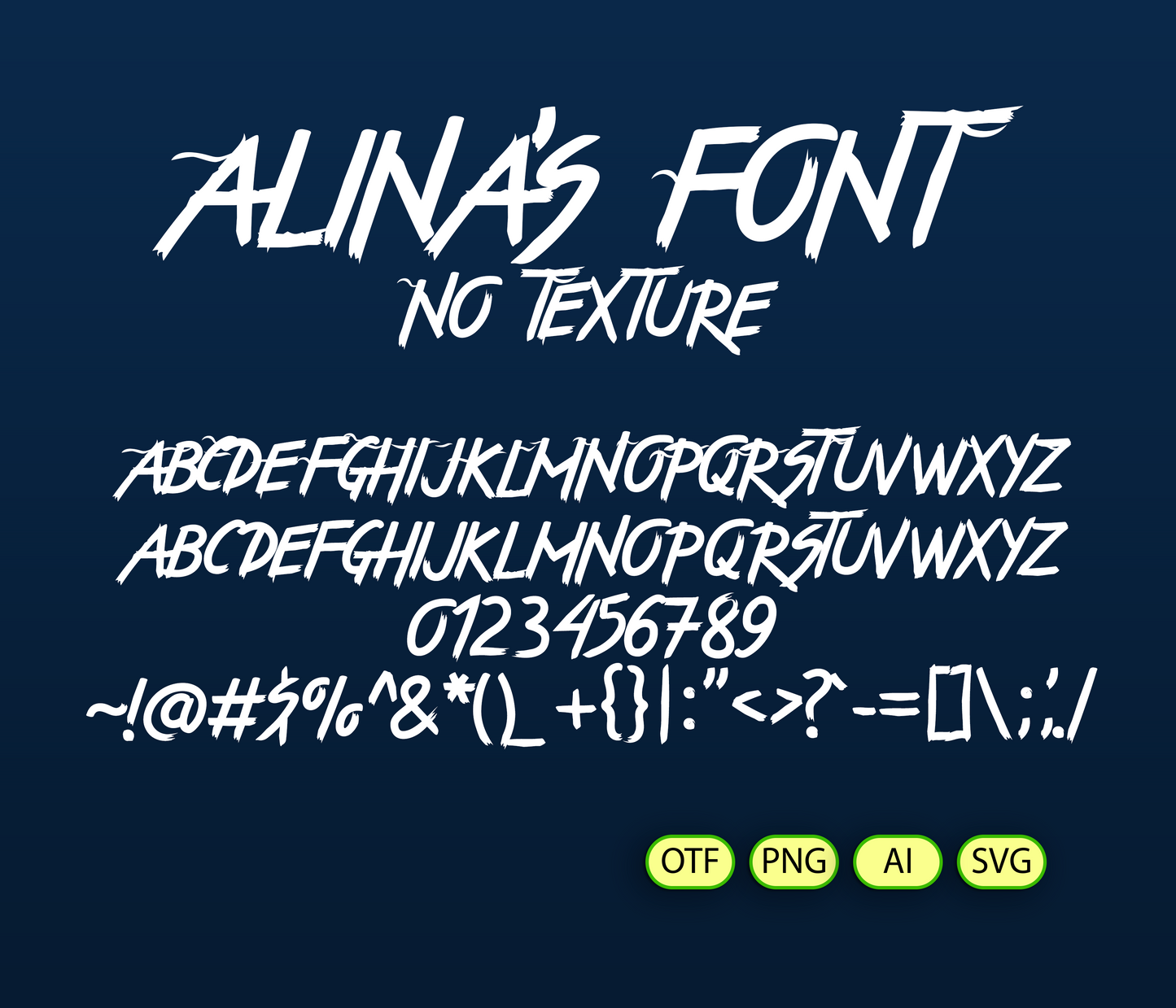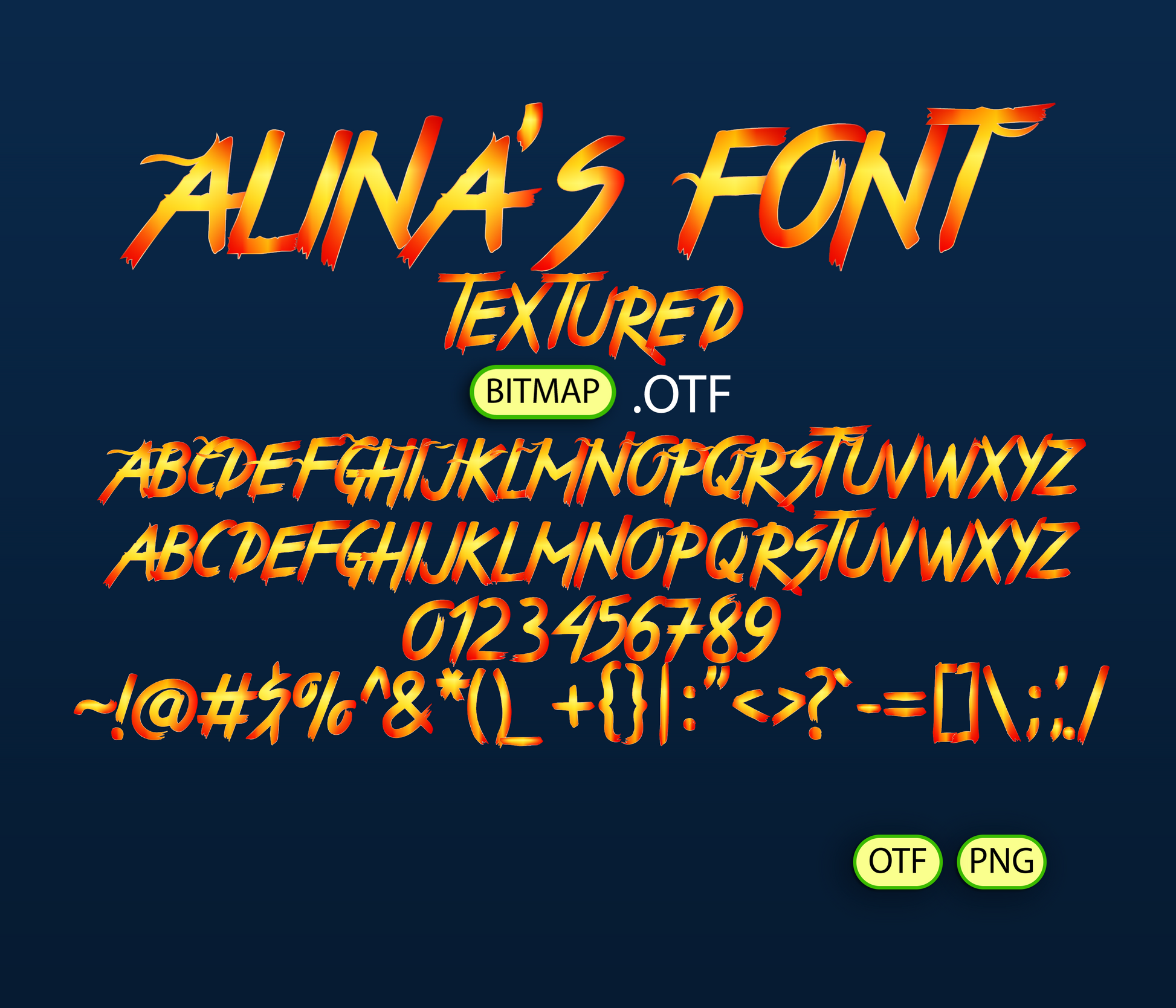
Vengeful Spirit: Last Ride Font Textured
Vengeful Spirit: Last Ride 2024 Textured Font
Ignite the flames of creativity with our Vengeful Spirit: Last Ride font, a blazing tribute to the latest chapter in the saga of an enigmatic supernatural anti-hero. This font encapsulates the intensity, rebellion, and fiery justice that the character embodies, set against the backdrop of his ultimate battle for redemption and vengeance. Drawing inspiration from dark, supernatural elements and iconic, hellish flames, this typeface is designed for fans eager to channel the spirit of the anti-hero into their own epic creations.
What font is the 'Vengeful Spirit: Last Ride' font?
This query unveils a typeface that mirrors the raw power and spectral aura of a ghostly rider. With characters that seem to be forged from fire and smoke, the font reflects the tumultuous journey of the character, blending elements of horror, action, and the supernatural. Its design strikes a balance between a gritty, visceral texture and a sleek, modern aesthetic, making it perfect for conveying the intensity of Last Ride. The comprehensive character set ensures that it is equipped for a wide range of applications, embodying themes of conflict, transformation, and justice.
• Comprehensive Character Set: Equipped with an extensive selection of characters to support creative projects, from straightforward text to complex designs requiring special symbols.
The Vengeful Spirit: Last Ride font is not merely a collection of letters; it's an invitation to explore the depths of a tormented soul. Whether used for personal projects, fan communities, or commercial endeavors, this font adds a layer of excitement and intrigue, making every creation a powerful tribute to the legacy of a supernatural anti-hero. Embrace the flames of creativity, and let your designs burn bright with the spirit of vengeance and redemption that Last Ride promises to deliver.